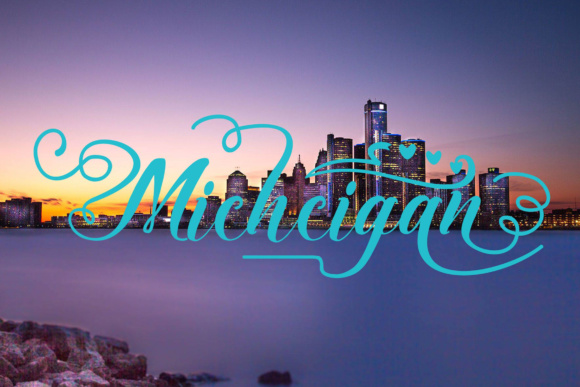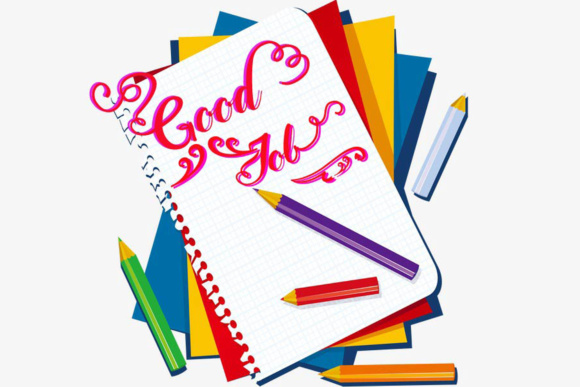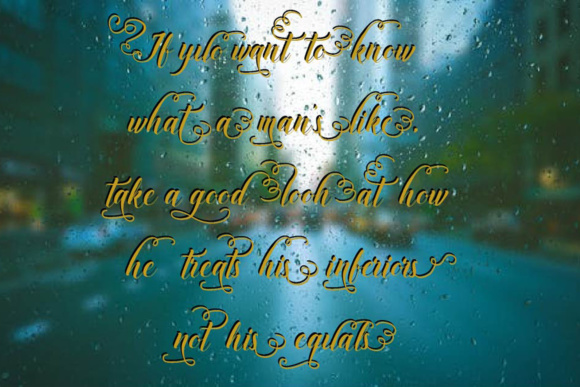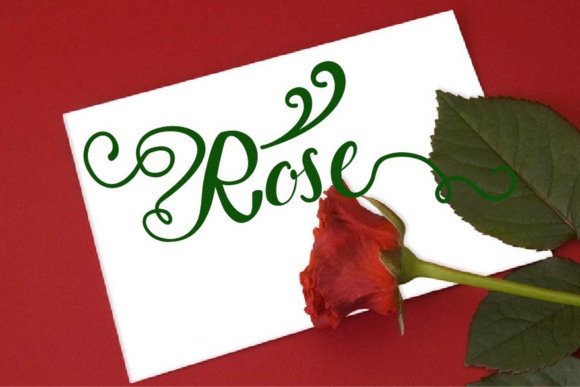
Introduction to Rampagoe Font
Have you ever found yourself lost in the world of typography, searching for the perfect font to elevate your creative project? It’s that moment of discovery when the right font transforms your design and brings it to life. For many designers, that moment came when they stumbled upon the stunning Rampagoe Font.
This beautiful, calligraphic font has been a game-changer for designers seeking a high-quality, swashy, and swirly font that adds a touch of elegance to their work. With its versatility and range of applications, Rampagoe Font is an invaluable design resource that can be used in a variety of projects, from displays to special occasion projects.
Key Features of Rampagoe Font
- With its bold and playful style, Rampagoe Font is ideal for creative projects that require a fun and energetic tone.
Honest Review: Rampagoe Font
As a designer, I’ve come across my fair share of fonts, but the Rampagoe Font stands out for its unique blend of modernity and playfulness. When I first downloaded it, I was excited to see how it would work in a creative project with a transparent background.
What works well: ✨ The Rampagoe Font’s high quality is immediately noticeable, making it a valuable design resource. Its clean lines and elegant curves give it a sophisticated feel, while its whimsical touches add a touch of personality. I love using it for titles and headings in my designs.
What I’ve found, however, is that the Rampagoe Font can be a bit challenging to read in smaller sizes. ⚠️ This is especially true when used in combination with a transparent background, as the text can become difficult to distinguish. It’s not a deal-breaker, but it’s something to keep in mind when choosing font sizes.
Overall, I’m a big fan of the Rampagoe Font. It’s a free download that offers a lot of bang for your buck. With its high quality and unique style, it’s definitely worth checking out – just be mindful of the potential limitations.
- Unique blend of modernity and playfulness
- Can be challenging to read in smaller sizes
How to Use Rampagoe Font
The Rampagoe Font is a free download that offers a high quality design resource for any creative project. With its unique style and transparent background, it’s perfect for adding a touch of elegance to your designs.
Tips for Getting the Most Out of Rampagoe Font
To get the most out of the Rampagoe Font, use it in combination with other design elements, such as graphics and images. Experiment with different font sizes and styles to create a unique look.
The Rampagoe Font is perfect for creating invitations, business cards, and other marketing materials. It’s also great for creating social media graphics and logos.